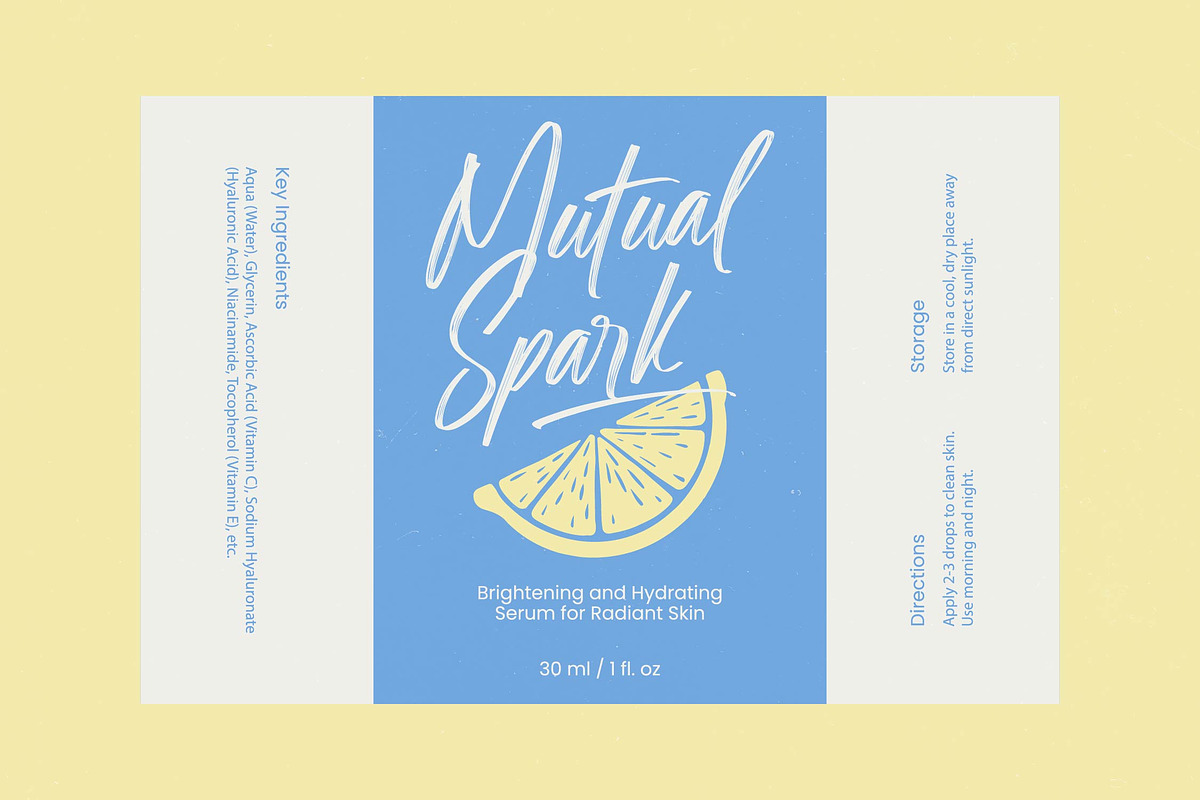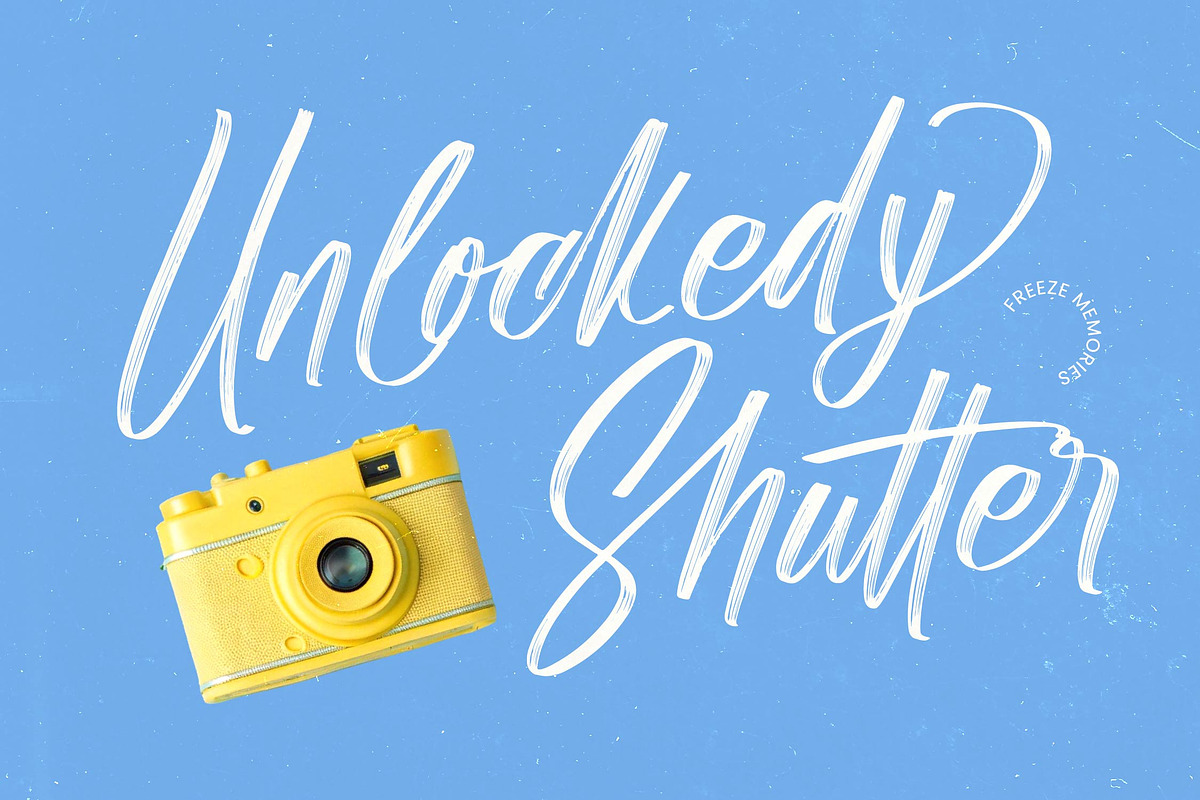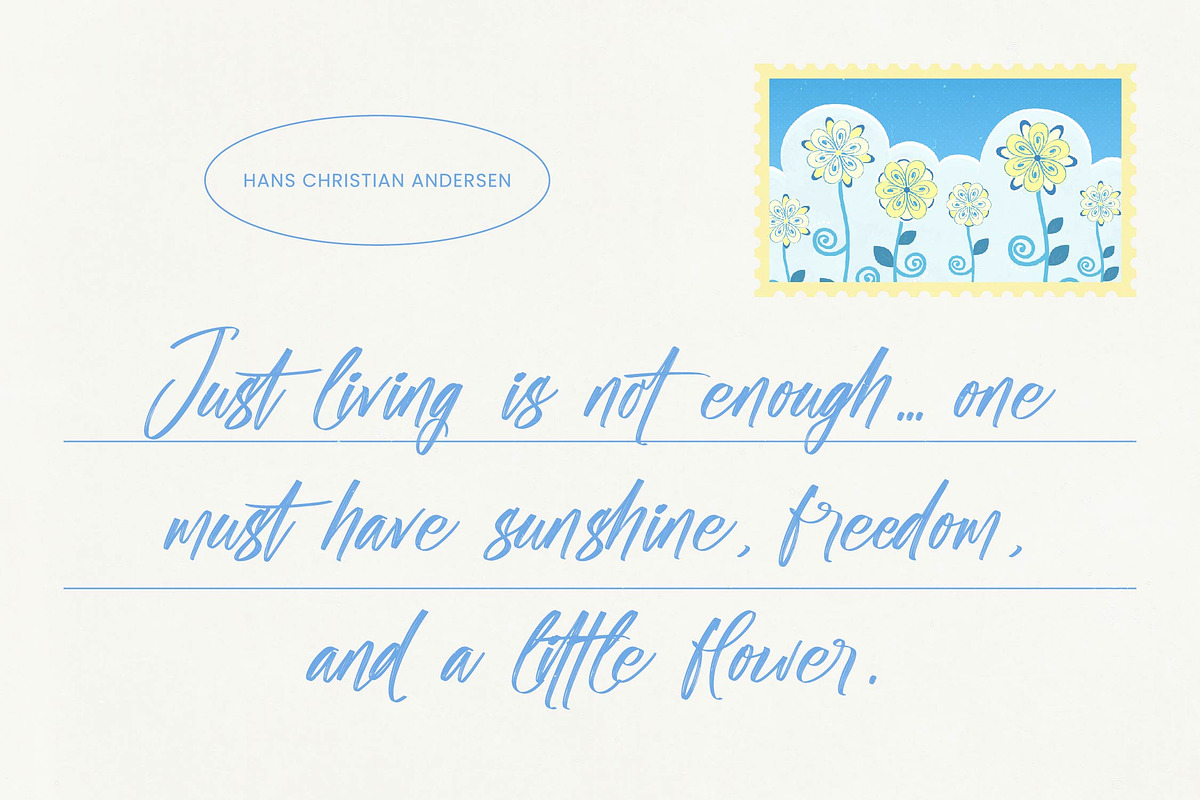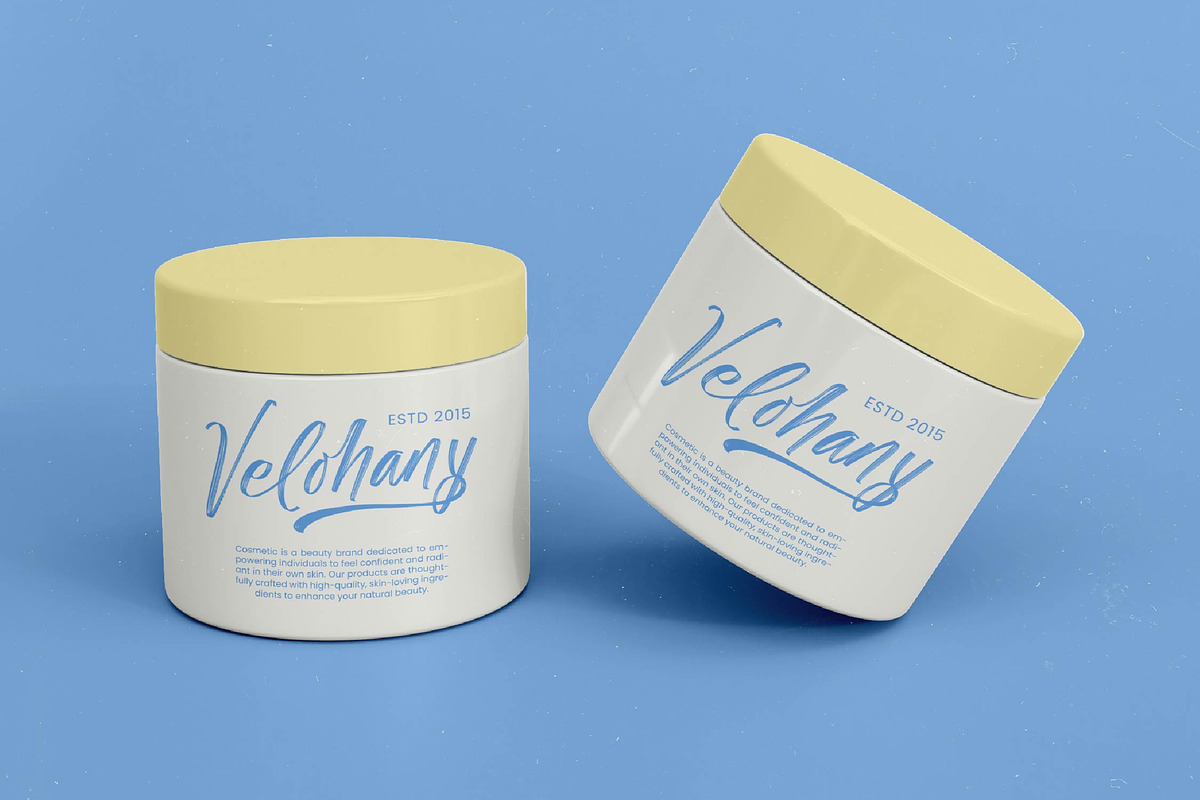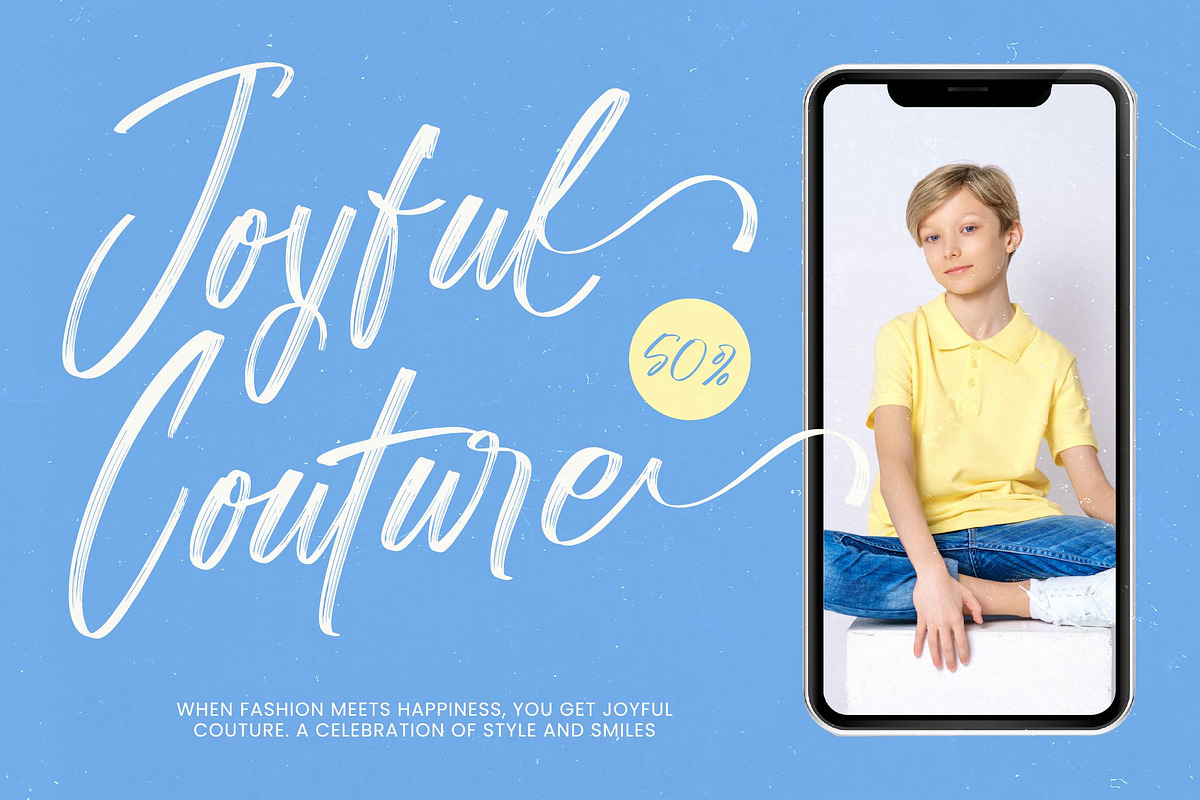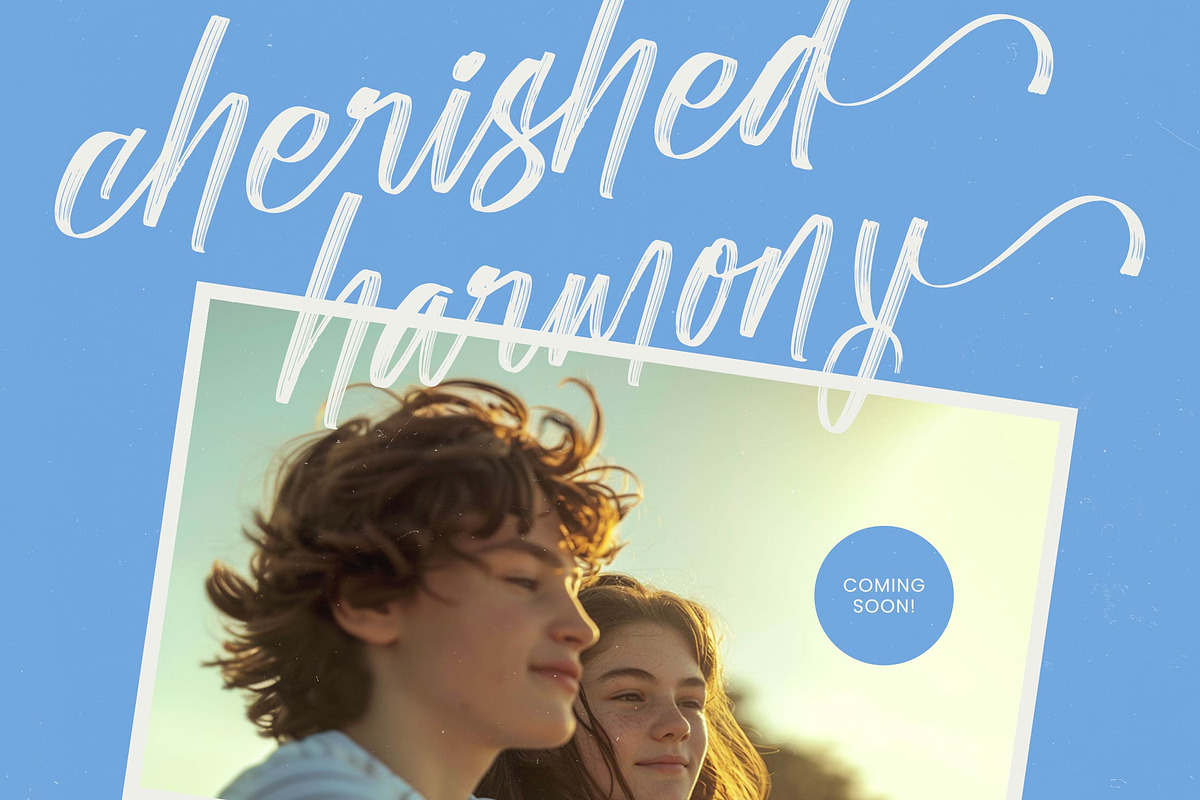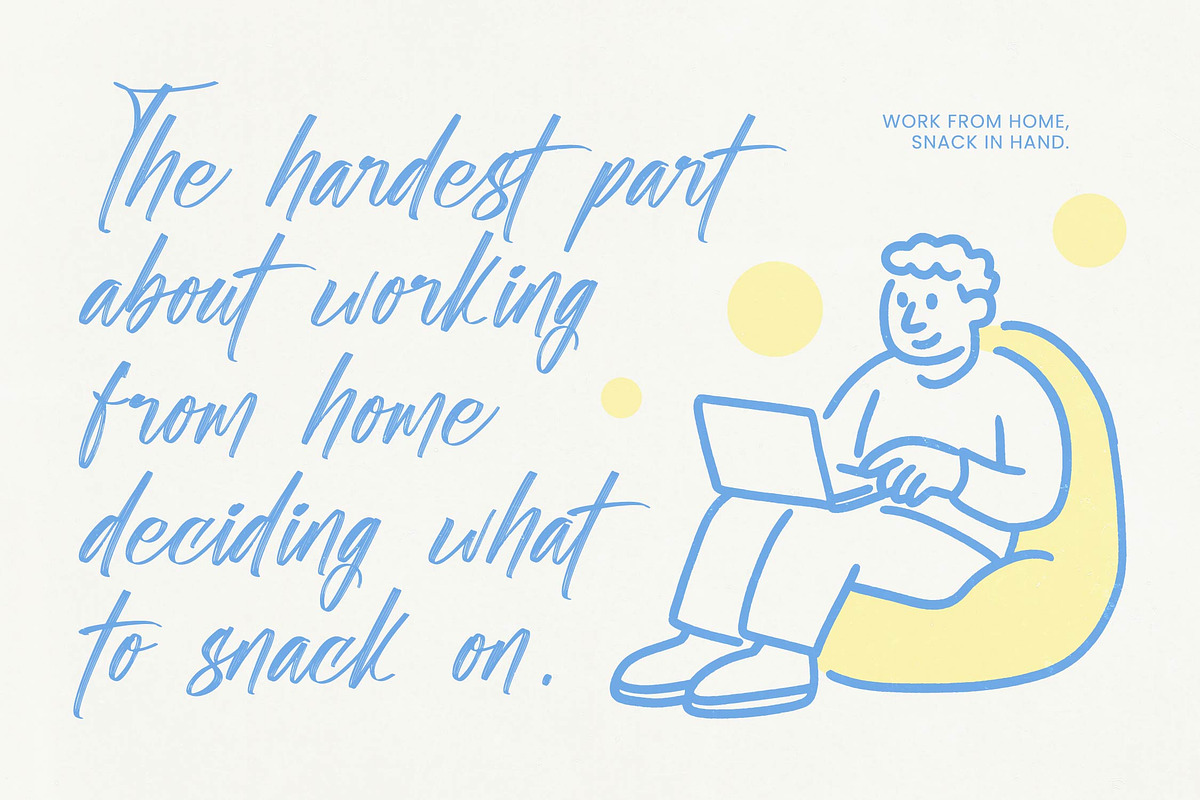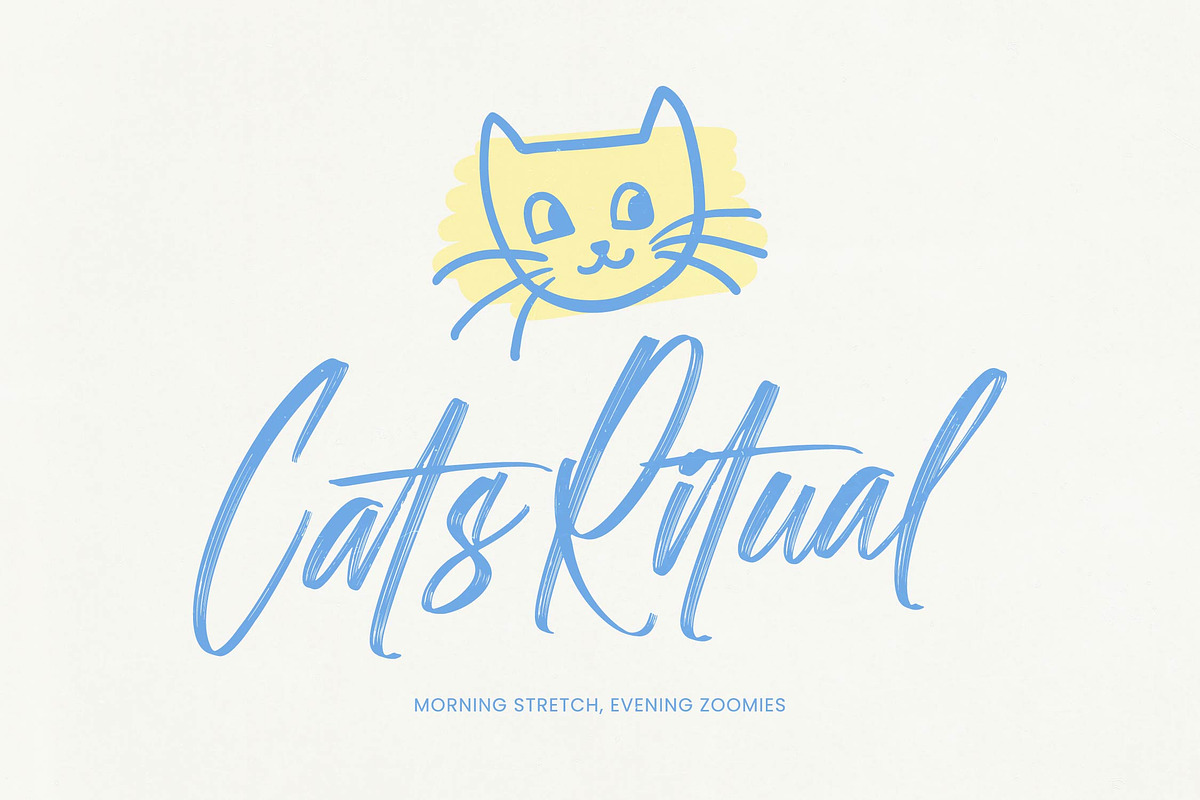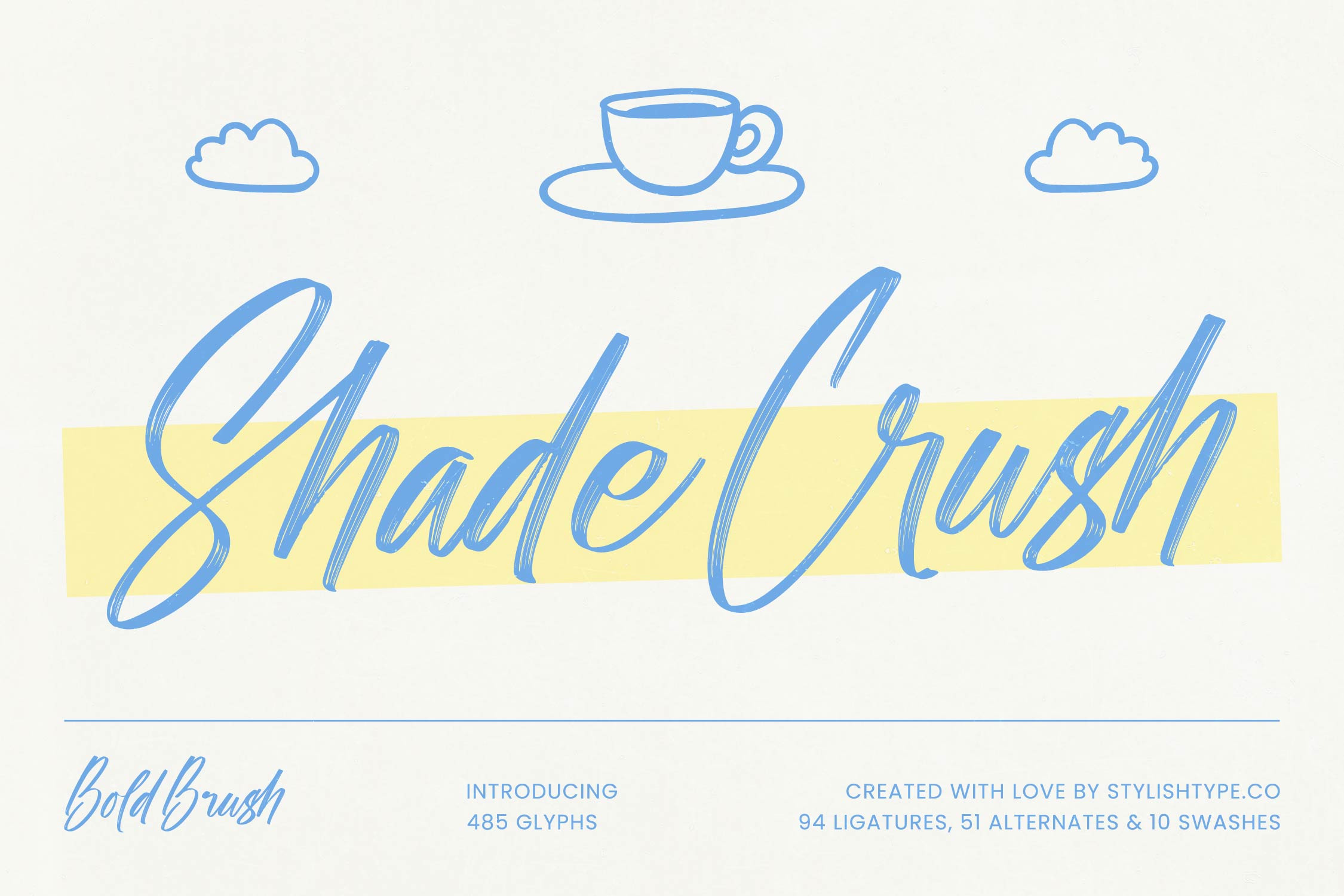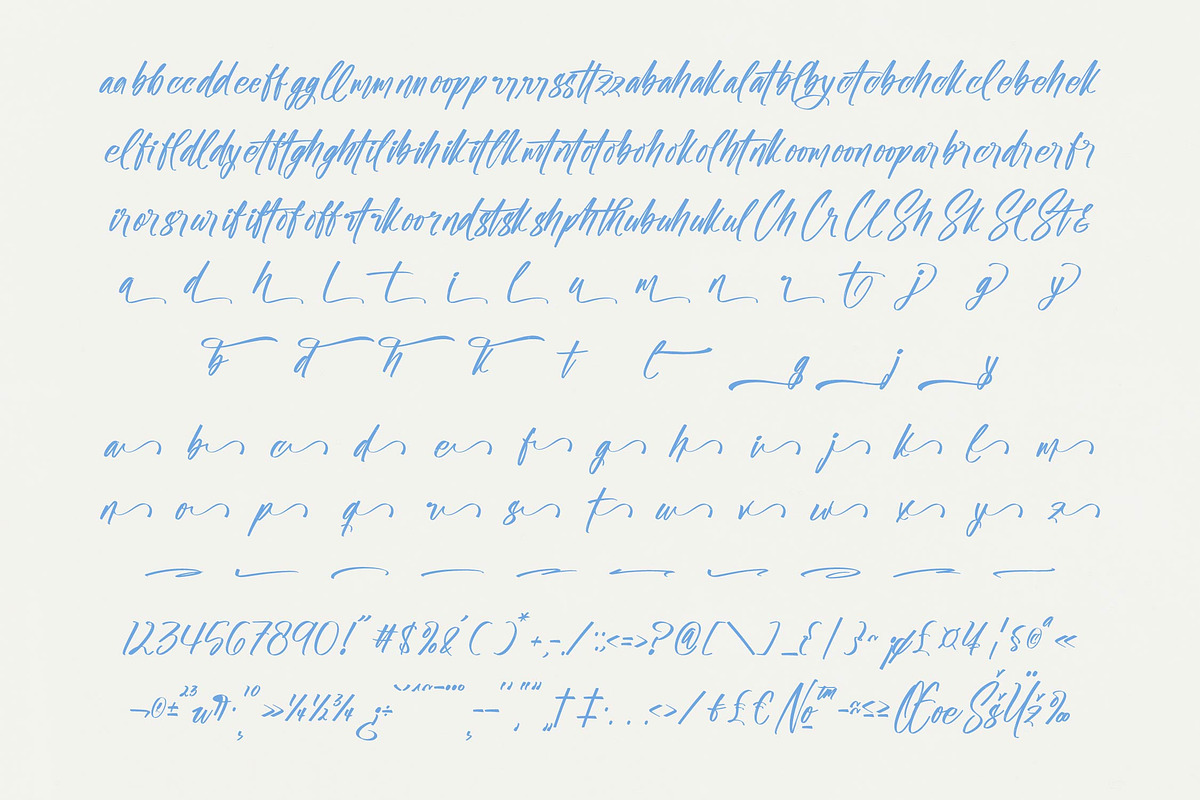
Shade Crush Bold Brush Font
Shade Crush - Bold Brush Font, Shade Crush is a playful bold-brush script that combines smooth handwritten strokes with lively texture details, creating a dynamic and uplifting feel perfect for branding, packaging, café menus, posters, social media quotes, and any design that needs a fresh creative touch. With 485 glyphs, 94 ligatures, 51 stylistic alternates, and 10 expressive swashes, this typeface offers an extensive range of movement and personality, allowing designers to build natural handwriting flow with effortless charm. Shade Crush brings a bright, friendly, handcrafted energy that stands out beautifully in both casual and expressive design projects.